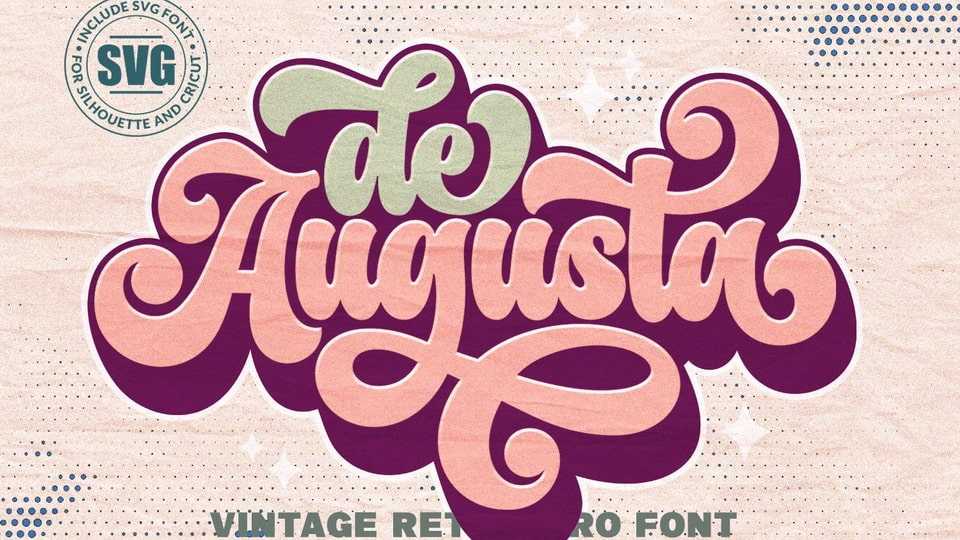
Download The Augusta font, a vintage script typeface inspired by retro typography and lettering in the 70’s and 80’s combined with bold typography style.